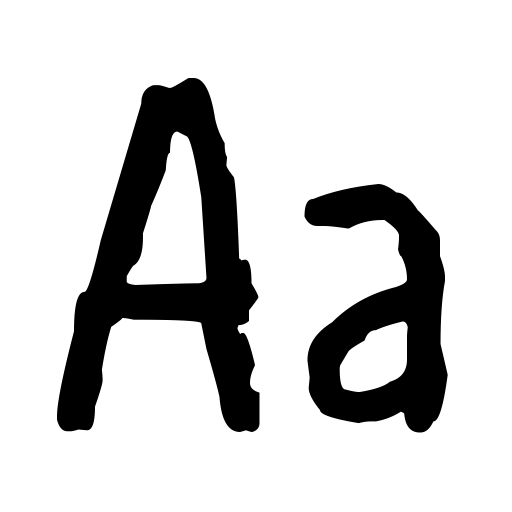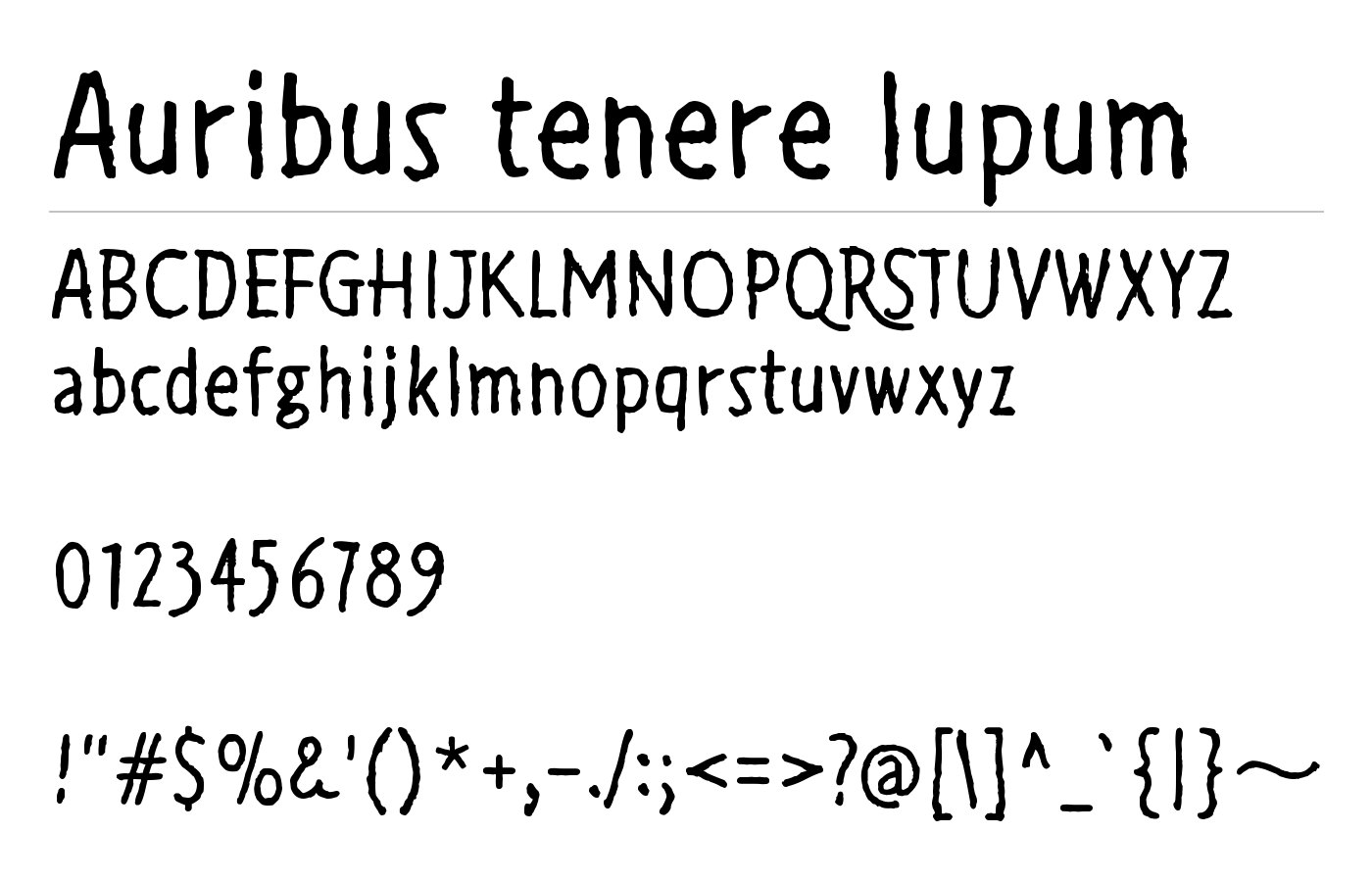
Auribus tenere lupum is a playful, hand-drawn sans serif font with a casual and organic feel. Its irregular strokes and slightly rough edges give it a friendly, approachable personality, making it ideal for creative projects, informal branding, or fun editorial pieces. This font works best in headlines, packaging, or any context where a warm, personal touch is desired.
Auribus tenere lupum Font
About Auribus tenere lupum Font